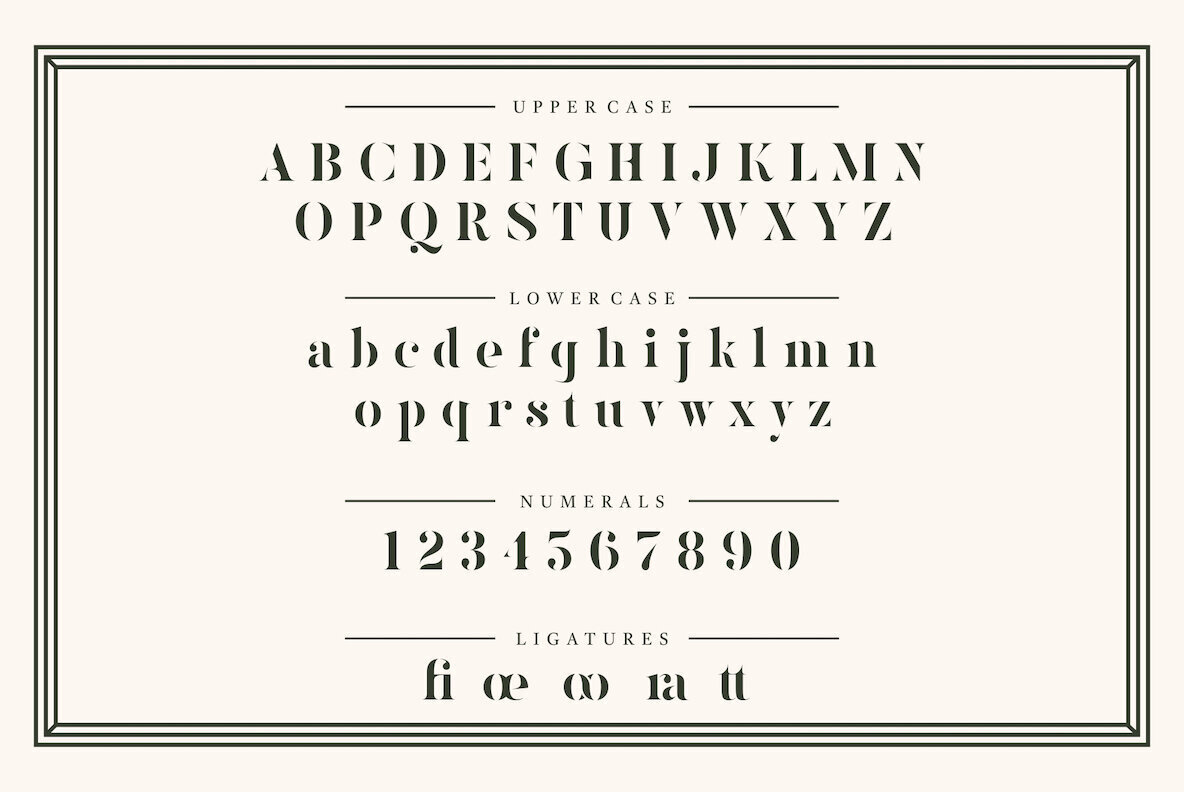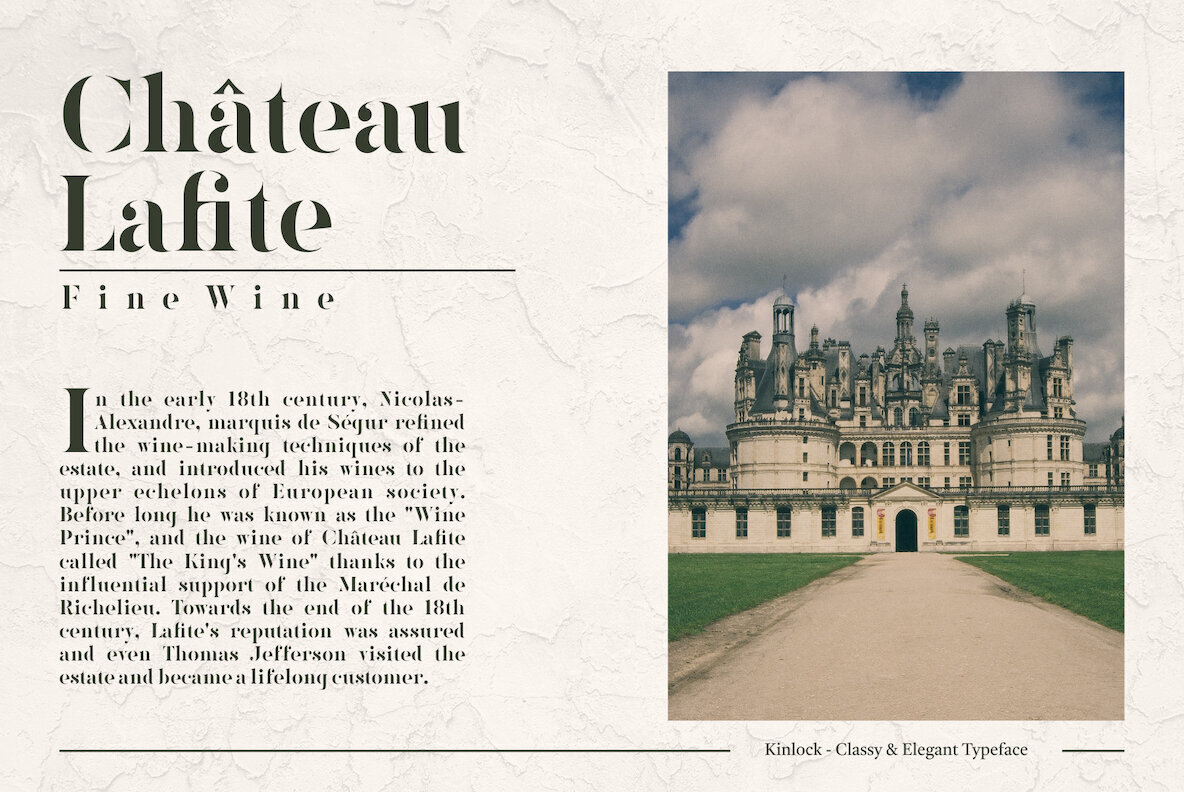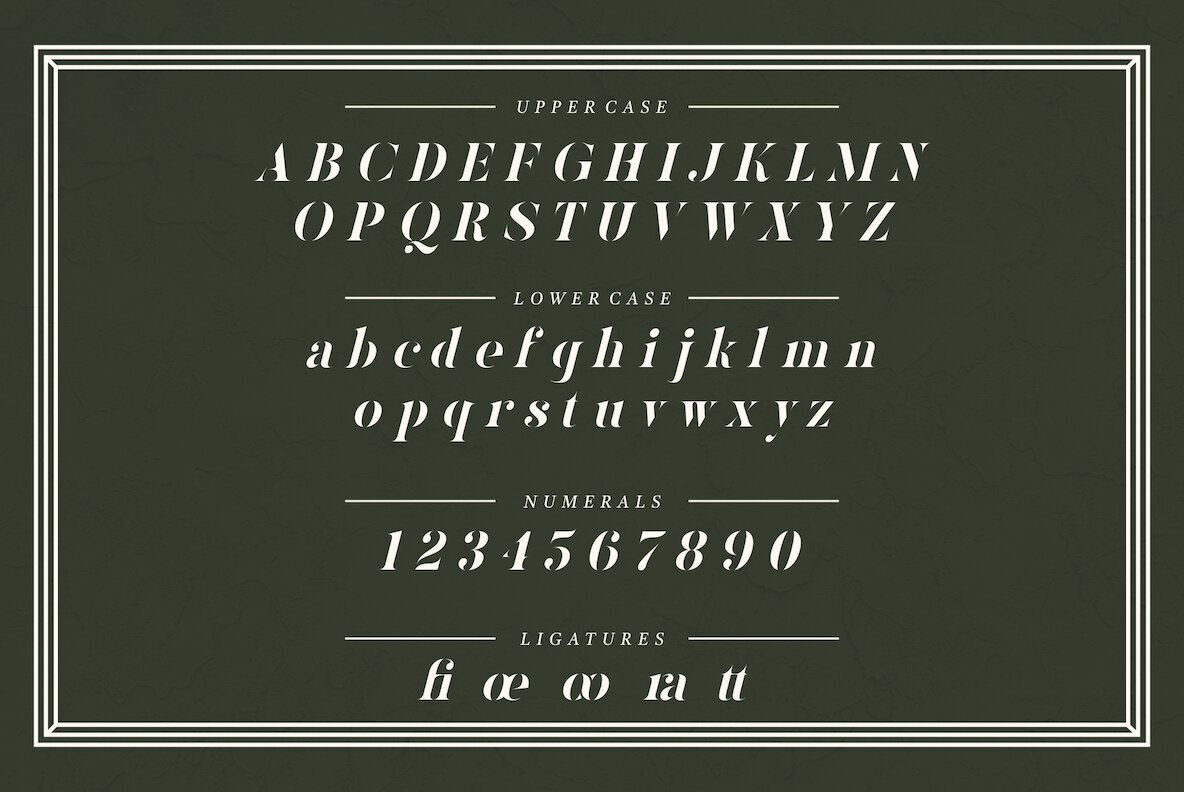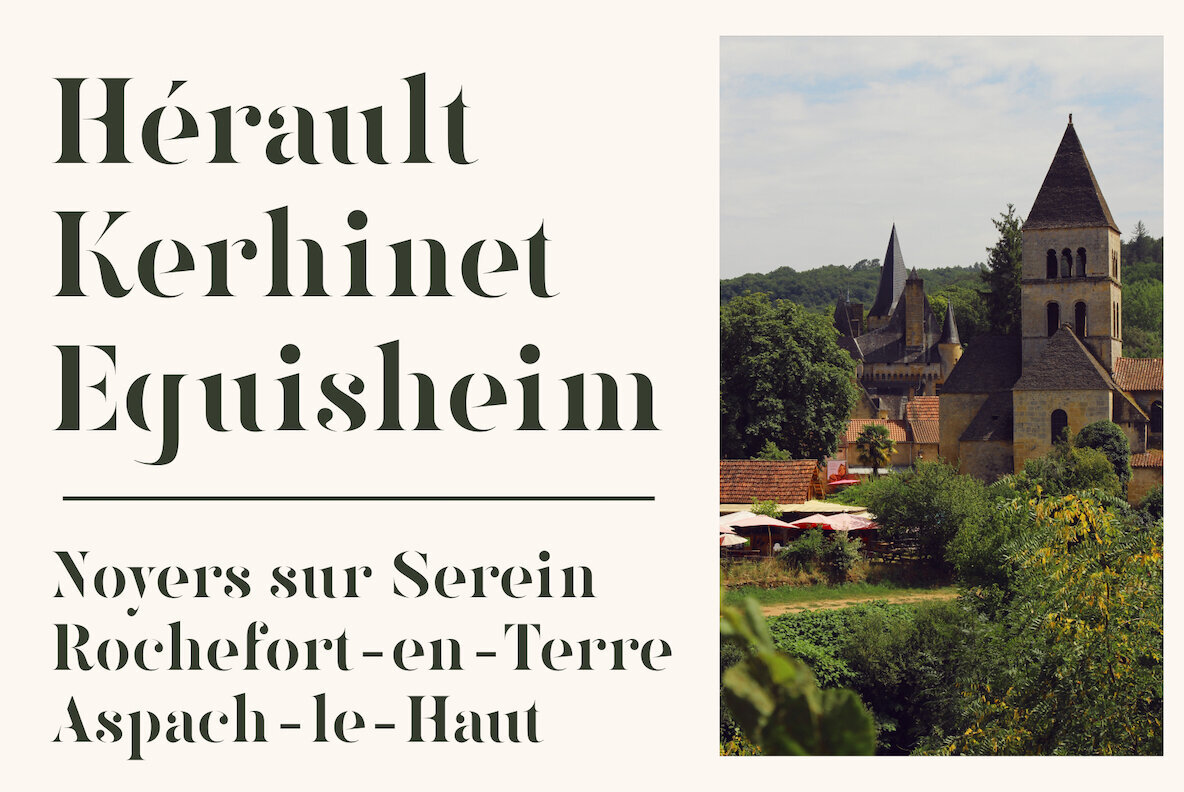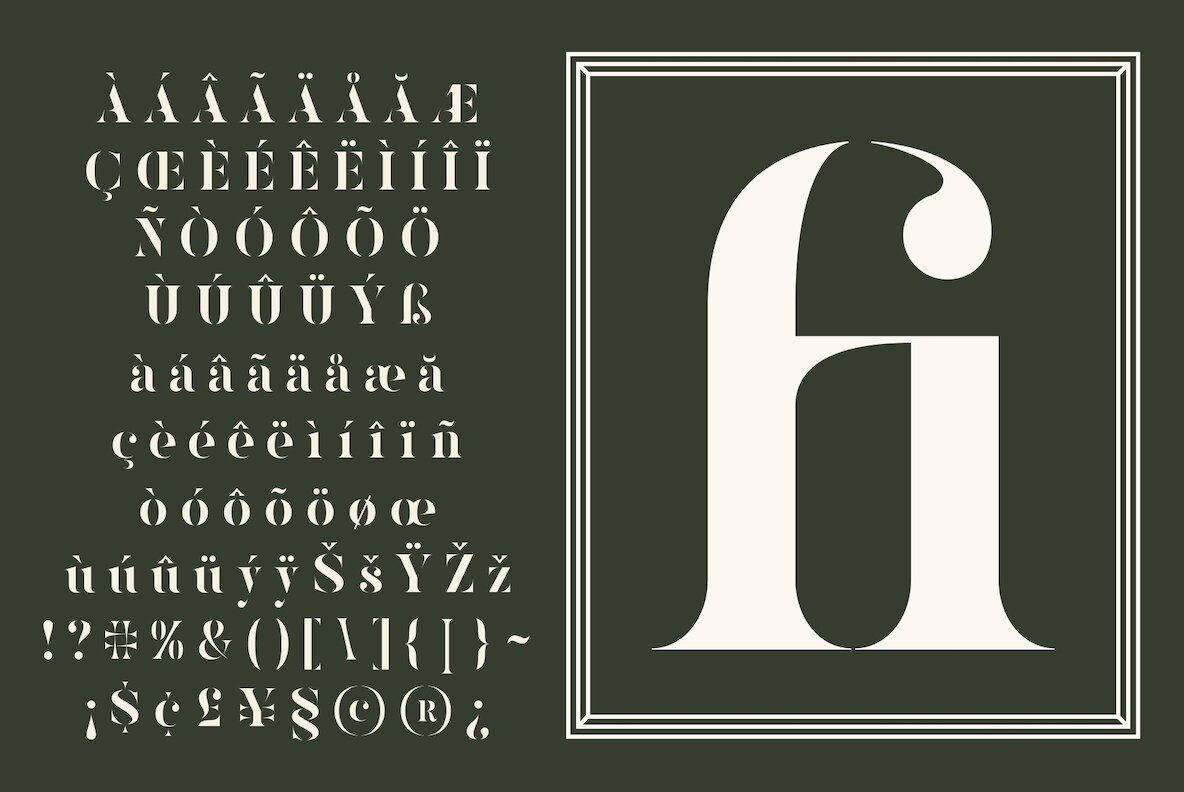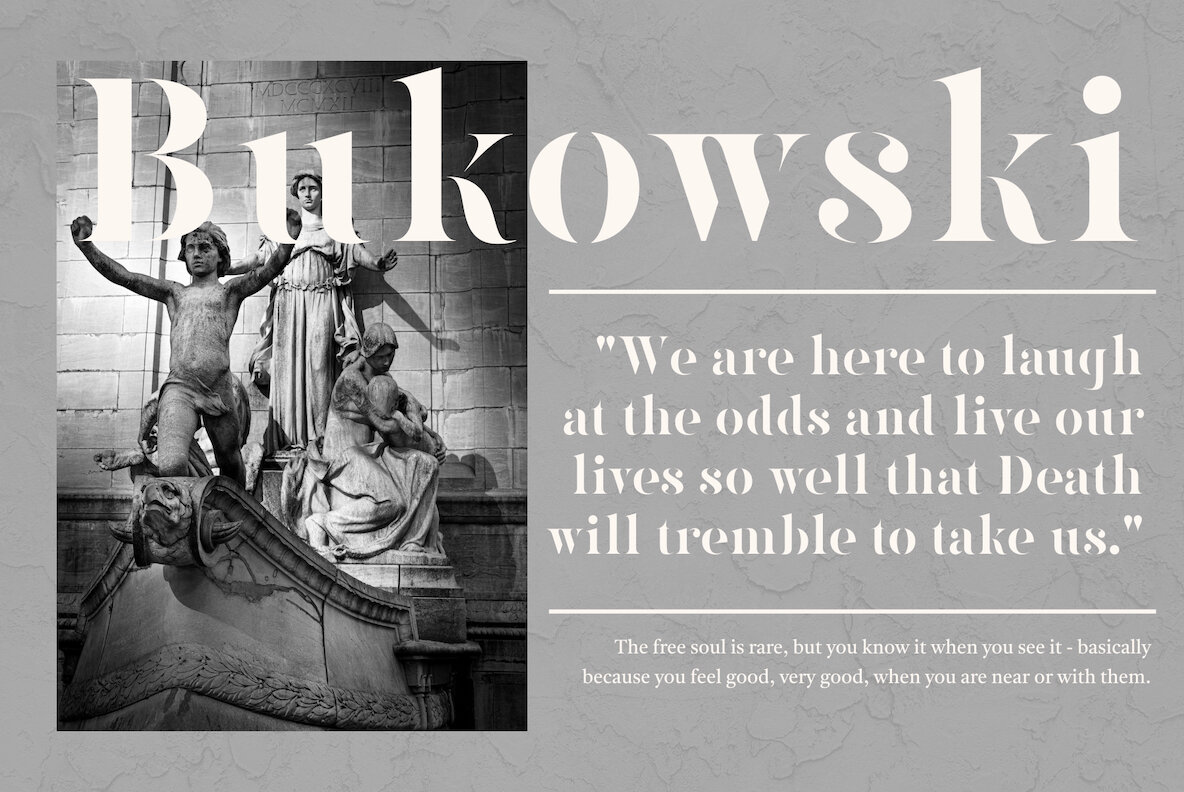
Kinlock Font
The Kinlock font by Surplus Type Co. encapsulates luxury through its refined stencil serif design. Available in both regular and italic styles, it adds a sophisticated touch to any project. Whether you're designing luxury product packaging, crafting labels, or working on an intricate branding project, Kinlock's luxurious lines are poised to enhance your design with an air of precision and elegance.Kinlock: Elegant Stencil Serif Font